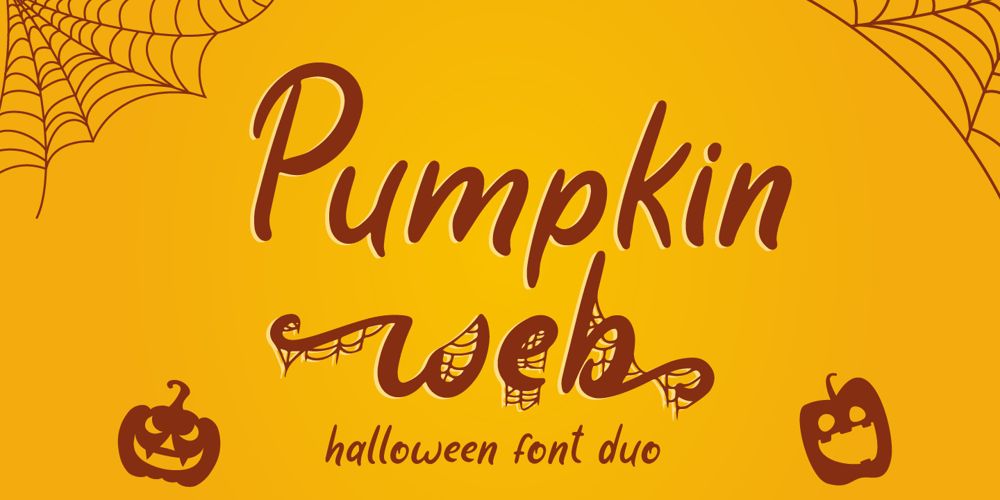
Pumpkin Web Font Family was designed by Fadli Ramadhan Iskandar and published by Attype Studio. Pumpkin Web contains 2 styles and family package options. Hello!Pumpkin Web is an exquisite handwritten font, masterfully designed to become a true favorite. It maintains its classy calligraphic influences while feeling contemporary and fresh. Fall in love with it and bring your projects to the highest levels!Pumpkin Web is perfect for branding, logo, invitation, stationery, social media post, product packaging, merchandise, blog design, game titles, cute style design, Book/Cover Title and more.What’s Included :- Pumpkin Web.otf- Pumpkin Web display.otf- Beginning & Ending Swash- Multilingual Support (Afrikaans, Albanian, Catalan, Danish, Dutch, English, Estonian, Finnish, French, German, Icelandic, Italian, Norwegian, Portugese, Spanisch, Swedish, Zulu)—Hope you enjoy with our font!Attype Studio